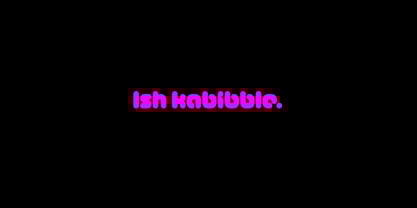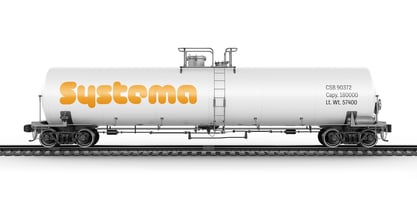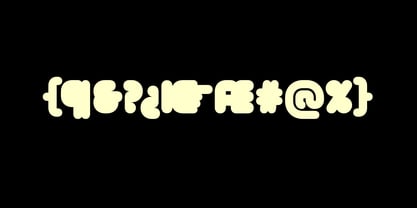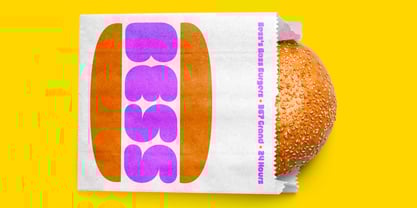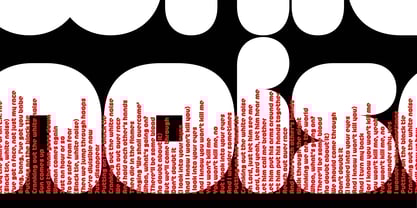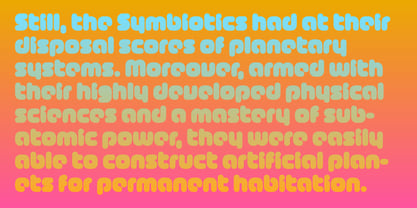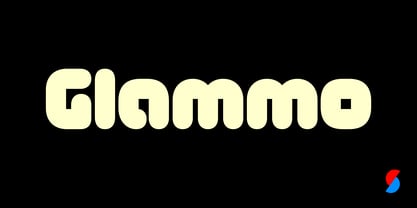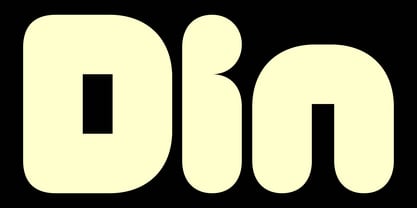
The Glammo Font Family was designed by Max Phillips and published by Signal Type Foundry. Glammo contains 1 styles. More about this family
As part of the annual Dublin Bowie Festival, Signal was invited to create a typographic poster based on David Bowie’s eighteenth studio album, BLACK TIE WHITE NOISE. BTWN is a dark and intensely 90s piece of work, inspired by the 1992 Los Angeles riots (which a newly-wed Bowie watched from his hotel window), and we decided the poster deserved a dark, intensely 90s typeface. Glammo blends references to techno, AKIRA, and the Designers Republic to convey a air of sleek modernity gone badly wrong. We set the full lyrics of the title track in red and ran them sideways along the bottom edge of the poster, suggesting both an audio equalizer display and leaping flames.